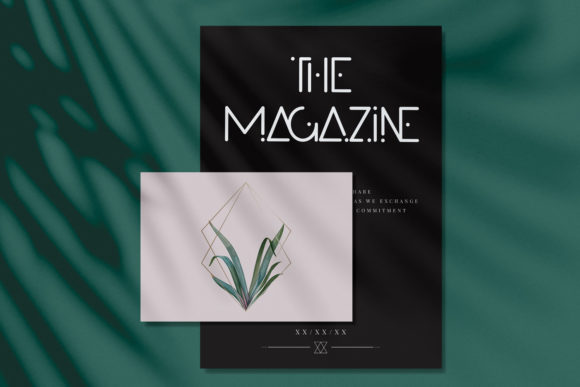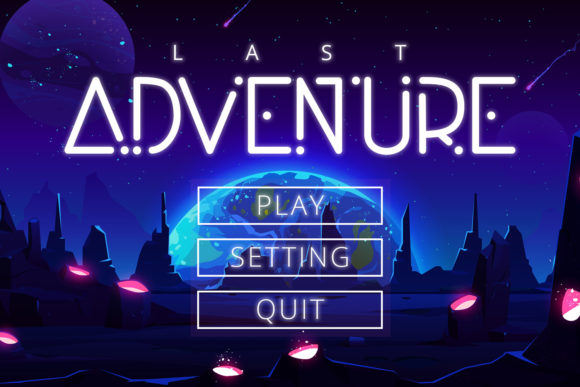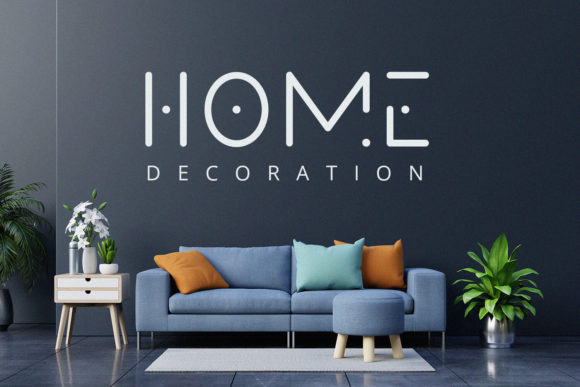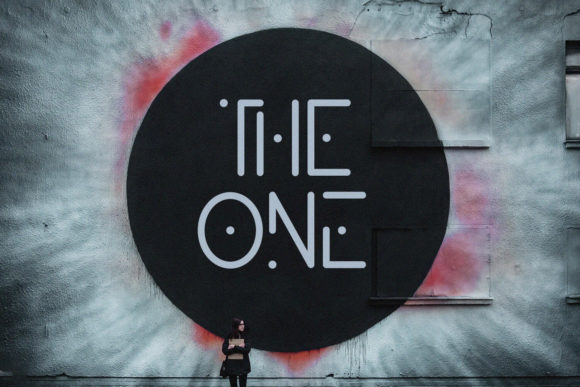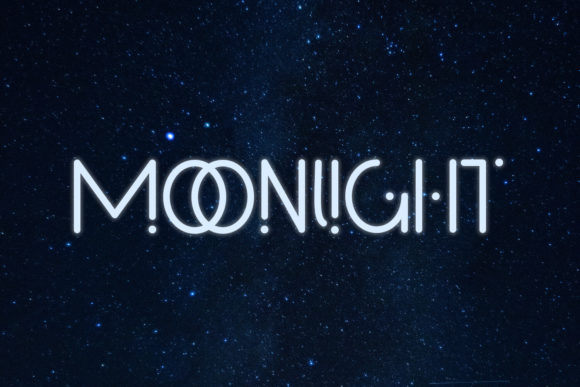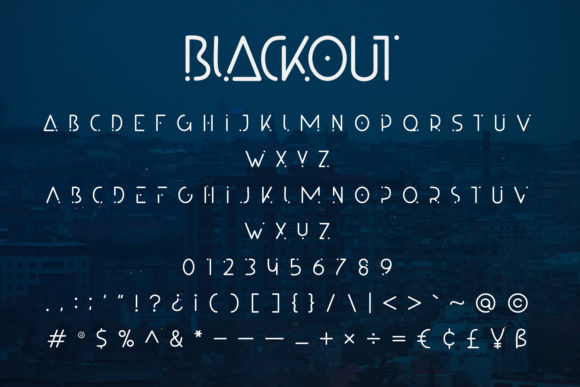
Introducing Blackout Font: The Ultimate Futuristic Display Font for Modern Designers
In the world of typography, fonts play a crucial role in conveying the tone and personality of a brand or design project. For designers and crafters looking for a font that exudes a futuristic yet authentic and casual feel, Blackout Font is an excellent choice. This versatile display font is perfect for a wide range of applications, from branding and logo design to lettering, packaging, and more.
What is Blackout Font?
Blackout Font is a carefully crafted display font designed to give your designs a modern and edgy look. Its unique blend of futuristic and casual elements makes it an ideal choice for designers who want to create bold and eye-catching visuals. Whether you’re working on a logo design, lettering project, or simply looking for a font to add some personality to your typography, Blackout Font is the perfect solution.
Key Features of Blackout Font
- Futuristic yet authentic and casual feel: Blackout Font boasts a unique blend of modern and laid-back elements, making it perfect for designs that require a bold yet approachable look.
- Versatile and adaptable: This font is suitable for a wide range of design projects, from branding and logo design to lettering, packaging, and more.
- High-quality and legible: Blackout Font is designed to be highly legible, even at smaller font sizes, making it perfect for use in various design applications.
Use Cases for Blackout Font
Blackout Font is an incredibly versatile font that can be used in a variety of design projects, including:
- Branding and logo design: Create a bold and memorable brand identity with Blackout Font.
- Lettering and logotype: Add a touch of personality to your lettering and logotype designs with this unique font.
- Clothing and apparel: Use Blackout Font to create eye-catching designs for t-shirts, hoodies, and other clothing items.
- Posters and magazine covers: Add a bold and futuristic touch to your poster and magazine cover designs.
- Packaging and shopping bags: Create eye-catching packaging and shopping bag designs that stand out from the crowd.
- Book covers and photography: Use Blackout Font to add a touch of modernity to your book covers and photography projects.
- Special events and exhibitions: Create bold and eye-catching designs for special events and exhibitions.
Why Choose Blackout Font?
With so many fonts available, why choose Blackout Font? Here are just a few reasons why designers and crafters love this font:
- Unique and distinctive: Blackout Font offers a fresh and unique take on traditional display fonts.
- Easily customizable: This font is highly adaptable and can be easily customized to suit your design needs.
- High-quality and legible: Blackout Font is designed to be highly legible, even at smaller font sizes.
Blackout Font is an exceptional display font that offers a perfect blend of futuristic and casual elements. Its versatility, adaptability, and high-quality design make it an excellent choice for designers and crafters looking to add a bold and modern touch to their designs. Whether you’re working on a branding project, lettering design, or simply looking for a font to add some personality to your typography, Blackout Font is an excellent choice.